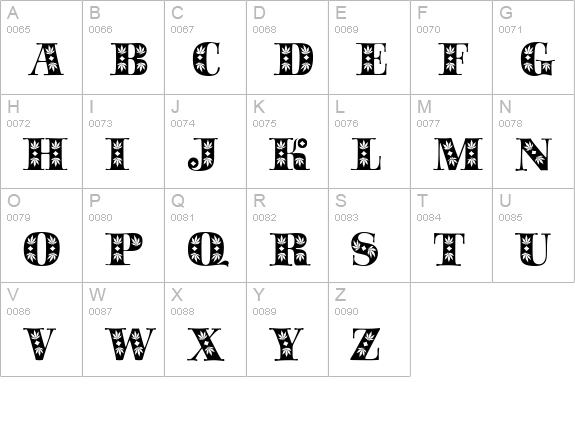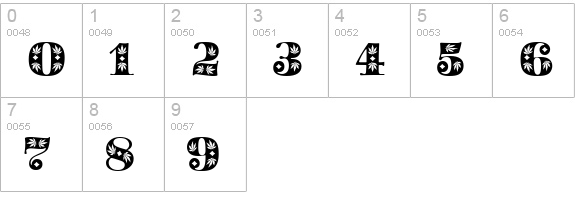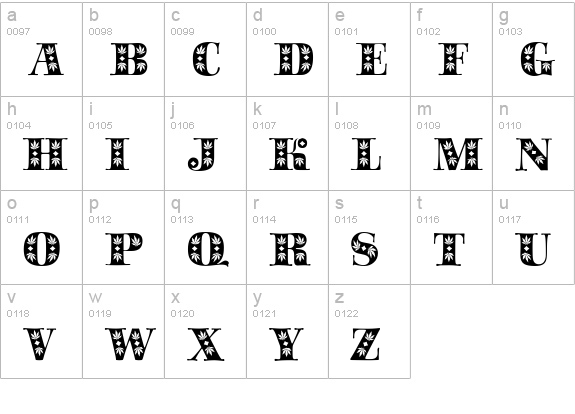
Introducing SapphireSativa, a captivating and enchanting font that will take your designs to new heights! This exquisite typeface embodies elegance and sophistication, making it perfect for a wide range of projects, from logos and branding to invitations and social media graphics. With its sleek and modern design, SapphireSativa effortlessly captures attention and adds a touch of class to any composition. Its clean lines and intricate details create a harmonious balance between beauty and readability, ensuring that your message is conveyed with utmost clarity. But what sets SapphireSativa apart from other fonts is its unique feature - it's free! Yes, you read that right. This remarkable font is freely available to download exclusively at FontsMarket.com. Now you can enhance your designs without breaking the bank, as SapphireSativa offers its exceptional quality and versatility at no cost to you. Whether you're a seasoned designer or just starting out, SapphireSativa empowers you to bring your creative visions to life. Its wide range of weights and styles allows you to experiment and find the perfect fit for every project. From the bold and eye-catching headlines to the elegant and refined body text, SapphireSativa offers endless possibilities for expressing your unique style and personality. So why wait any longer? Discover the beauty and versatility of SapphireSativa today. Download this exceptional font for free at FontsMarket.com and let your designs shine with the radiant brilliance of SapphireSativa. Don't miss out on this incredible opportunity to elevate your projects and leave a lasting impression on your audience.